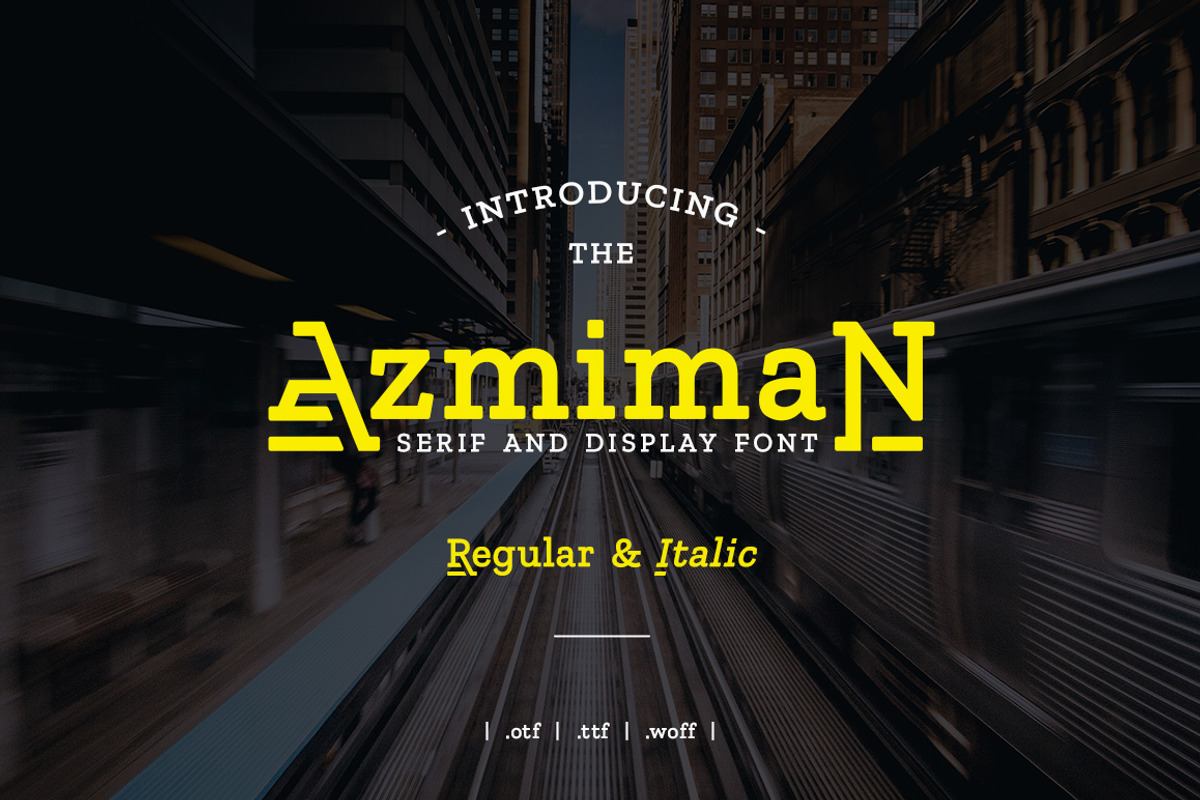
Azmiman Serif Font Free Download is a refined and sophisticated typeface that blends traditional serif elements with a modern, elegant design. With its balanced proportions and timeless appeal, this font is perfect for high-end branding, editorial layouts, luxury product packaging, and upscale websites. Whether you're creating a sophisticated logo, designing a stylish magazine, or crafting premium marketing materials, Azmiman brings an air of professionalism and grace to your work. The Azmiman Serif Font Free Download allows you to experiment with its refined style in personal projects before purchasing a commercial license. Elevate your designs with a typeface that combines classic charm with contemporary elegance.